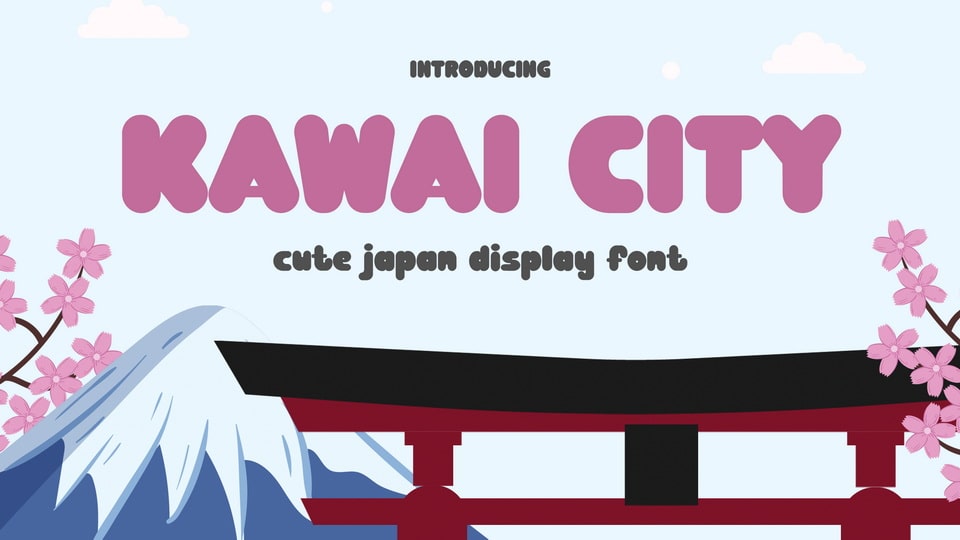
Download Kawai City font, a cute Japan display typeface. Suit perfectly for children’s books and comics, online games, stationery, school supplies, poster, movie title, Youtube covers, Youtube thumbnails, social media page covers, and so on